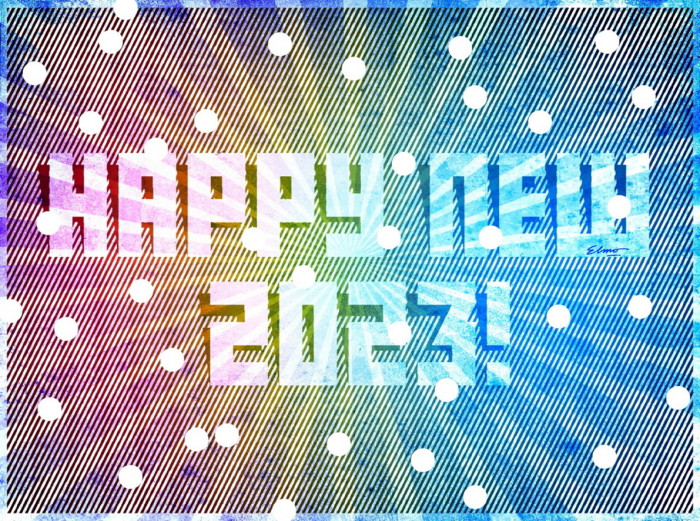
Unicase font with alternates. Special characters: Blank space at the "\", "LT" pair (kerned) at the "fi" ligature and the "TJ" pair is at the "fl" too. Better to see the font at big size. Enjoy and Happy New Year 2023!
@elmoyenique - Love the extra shadow effect behind the glyphs. It makes this font stand out apart from so many others where "positive space" glyphs are formed using a diagonally-striped background. :^)
This is fantastic. Wonderful optical illusion!
i am mind blown
It actually looks like 3D!
Oooh! Very nice! Excellent idea and execution.